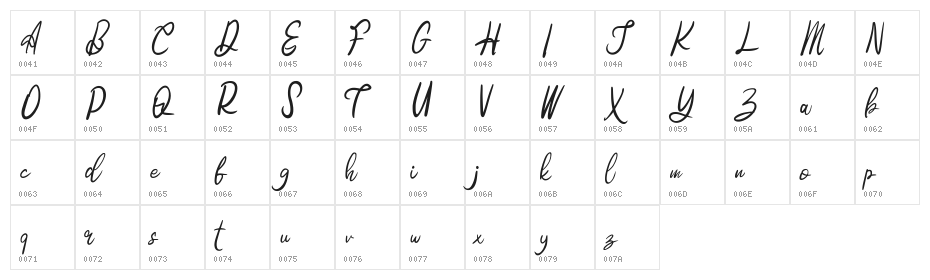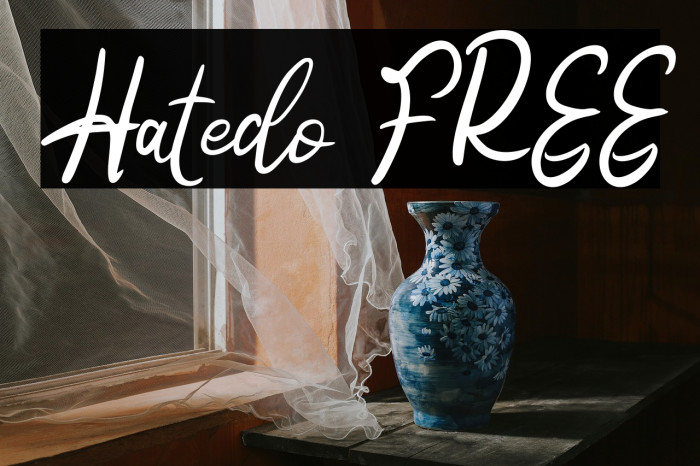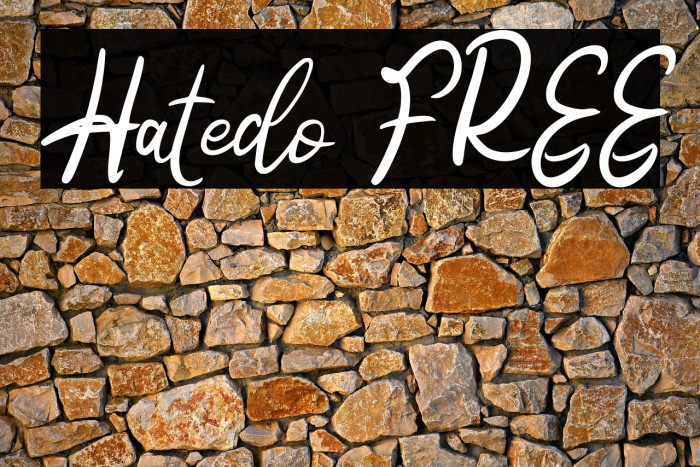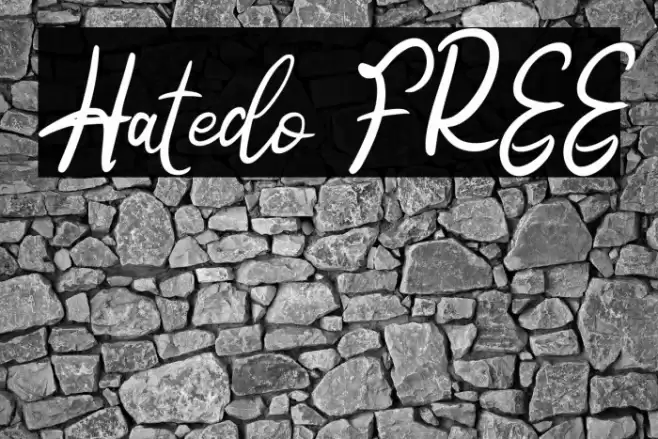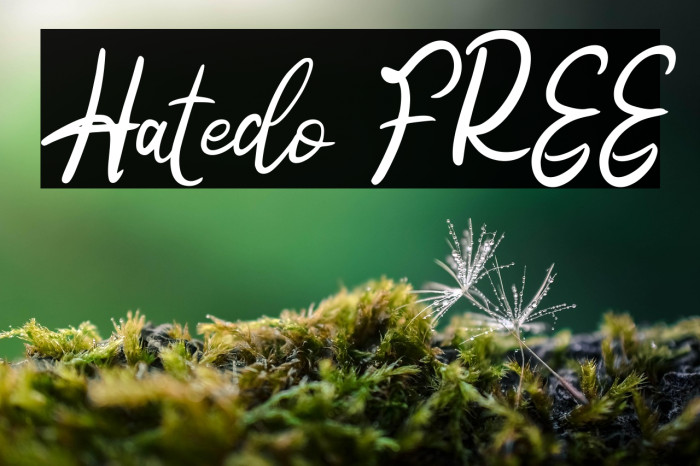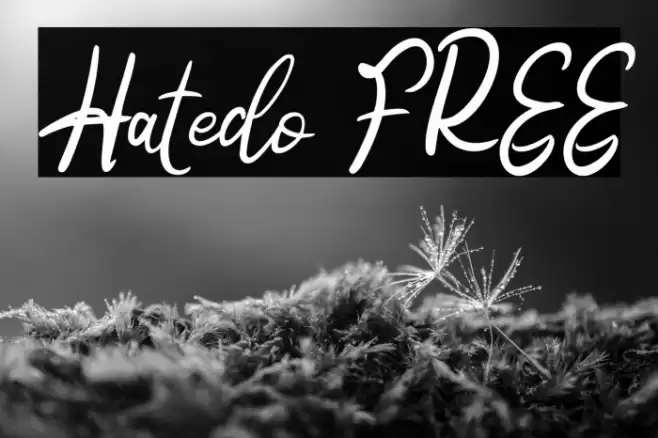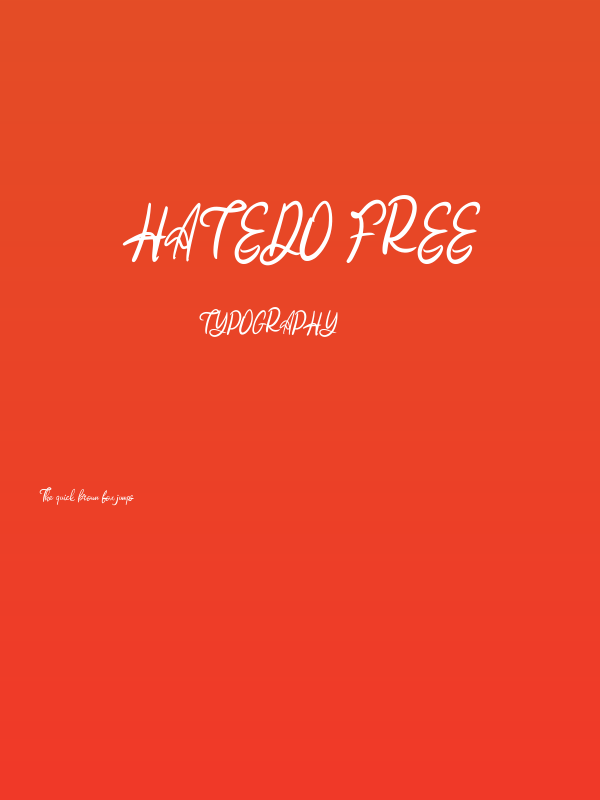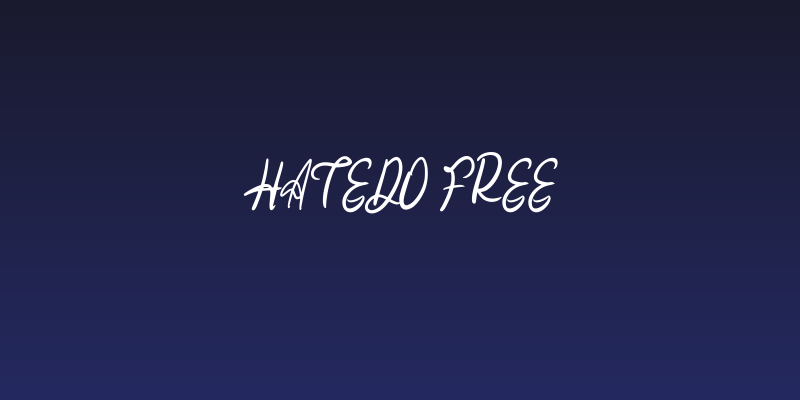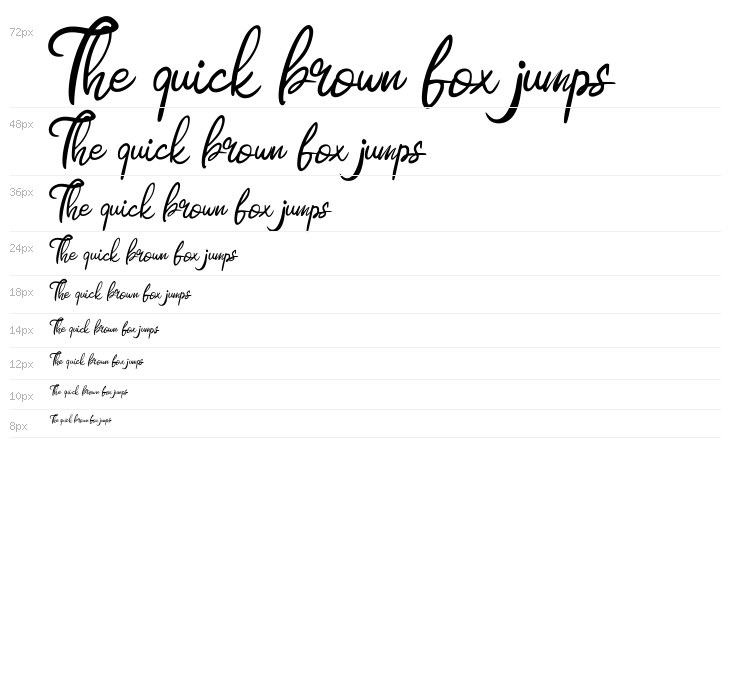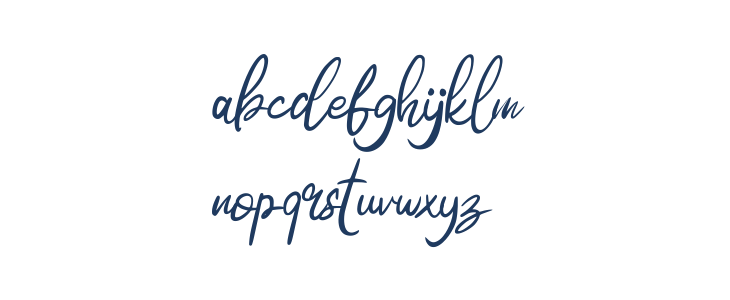
Hatedo FREE Font
Hatedo FREE Description
This font features a dynamic and expressive script style, characterized by its fluid and flowing letterforms. The uppercase letters exhibit a bold and confident presence, with sweeping curves and elegant loops that convey a sense of movement and energy. The lowercase letters maintain a cohesive and harmonious appearance, complementing the uppercase with their smooth and connected strokes. The overall design is both artistic and legible, making it suitable for creative and decorative applications. The font's playful yet sophisticated nature is enhanced by its consistent stroke width and balanced proportions.
| Proposed Projects | Ideal for branding, invitations, greeting cards, and artistic projects. |